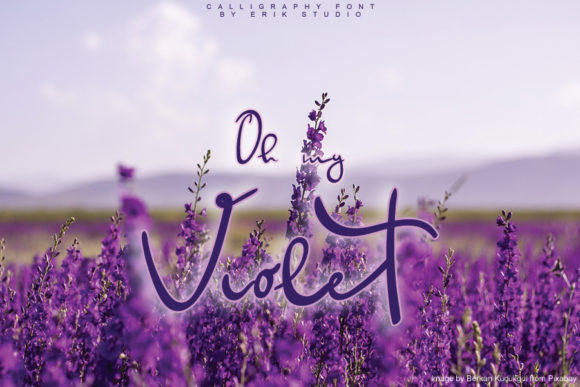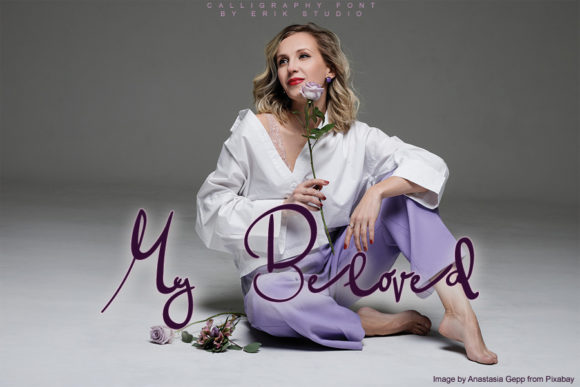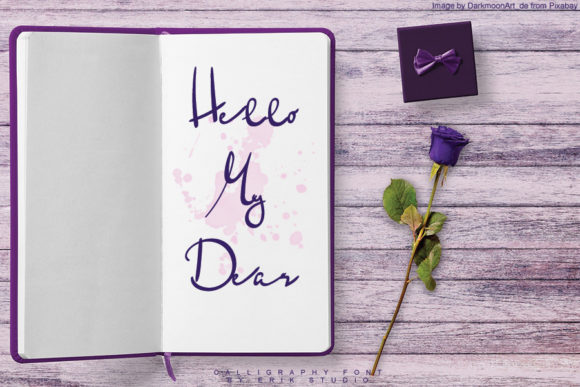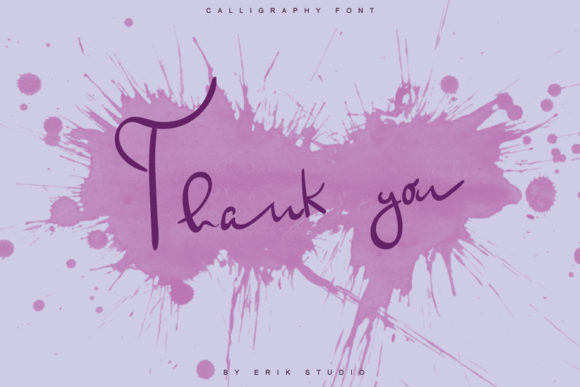
Stay Wonderful Font
About Stay Wonderful Font
Stay Wonderful is a whimsical script font with a flexible theme, featuring a lovely style. No matter the topic, this font will be an incredibly asset to your fonts’ library, as it has the potential to elevate any creation.